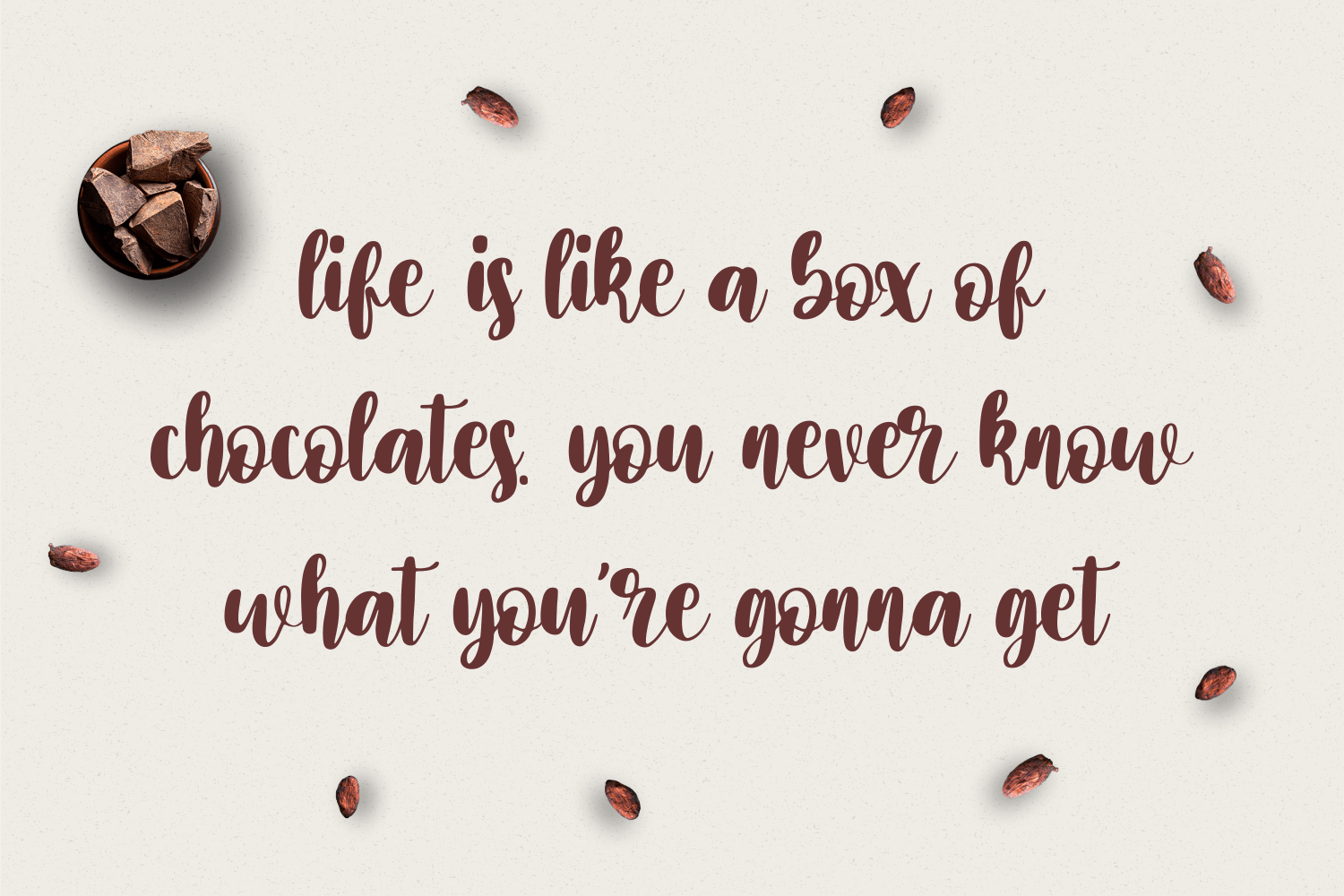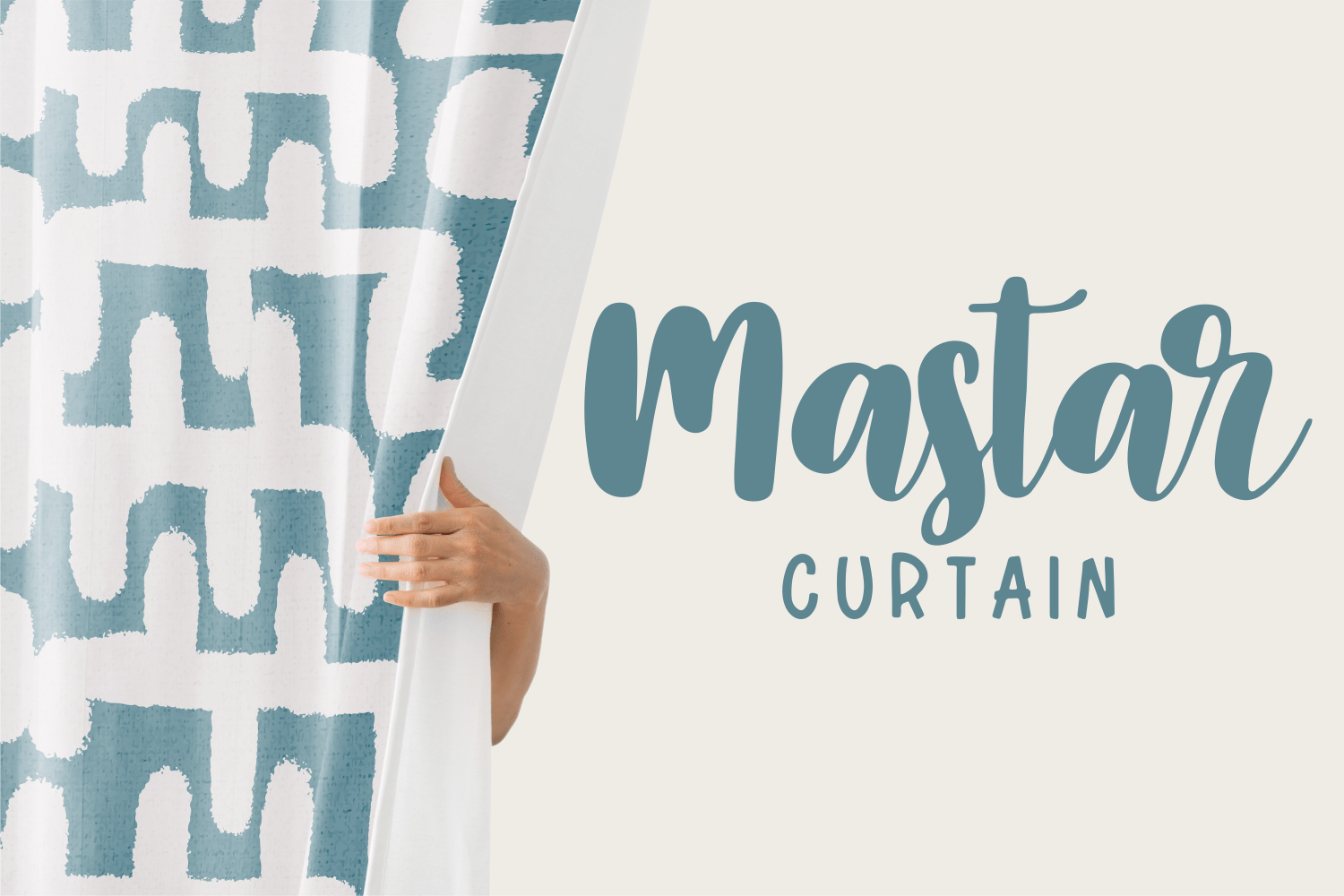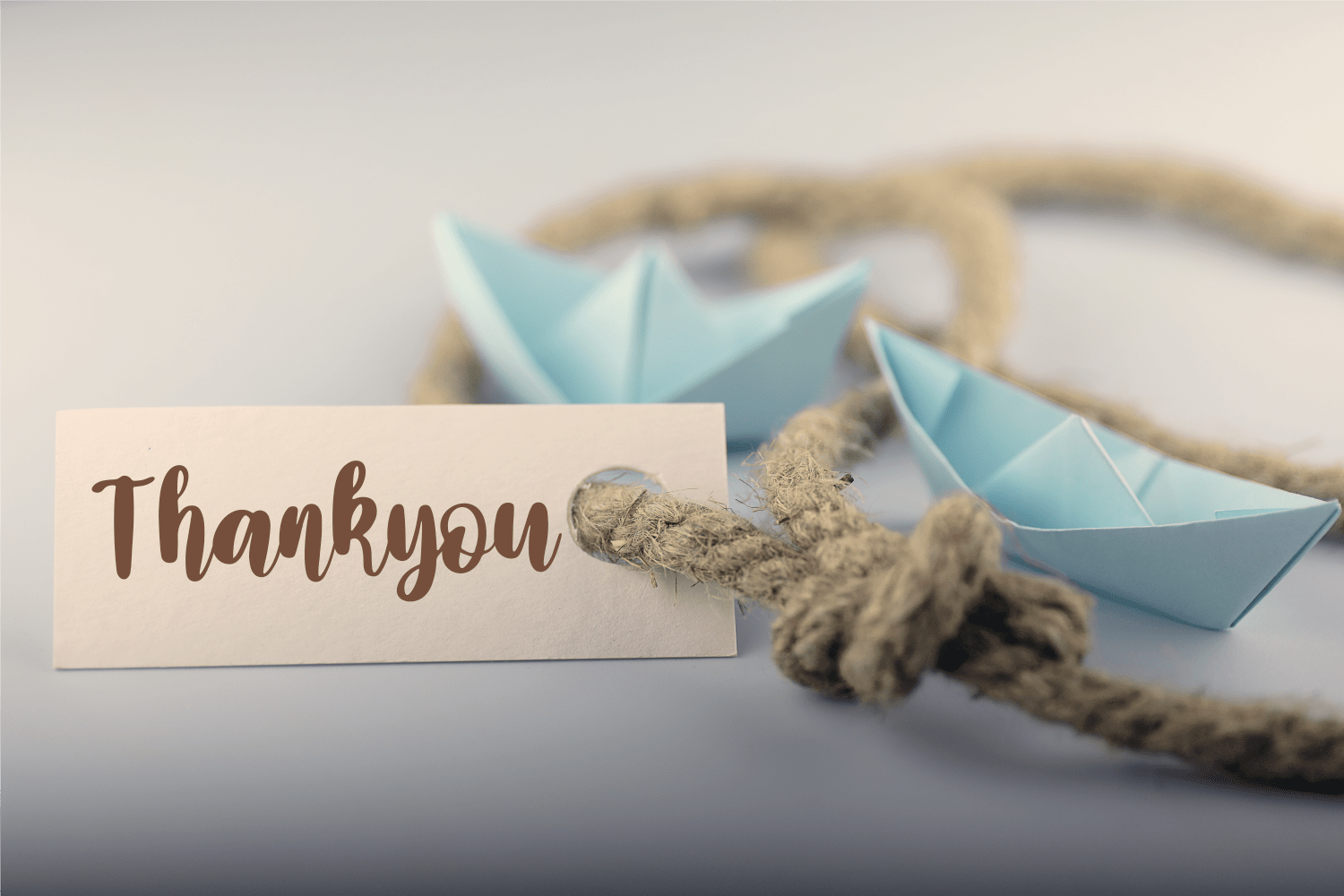
Biscuit Recipe Font
Biscuit Recipe Script Font is a fancy and elegant handcrafted font that create to impress your audience and make your branding shine. Make your projects dance with this elegant and wonderful font wherever you use it. Use it for your headings, logos, ads, printed quotes, packaging, and even your website or social media branding.
Forberas Foundry